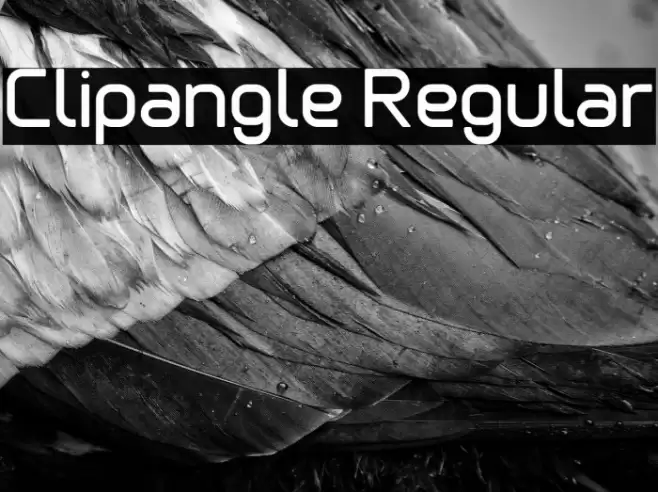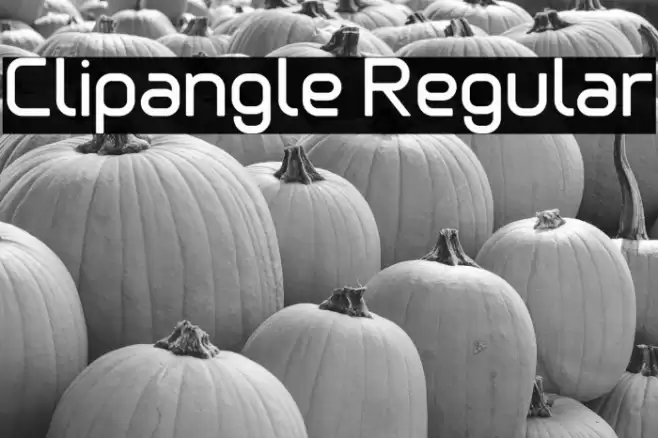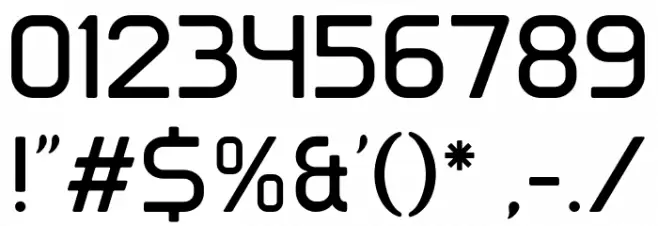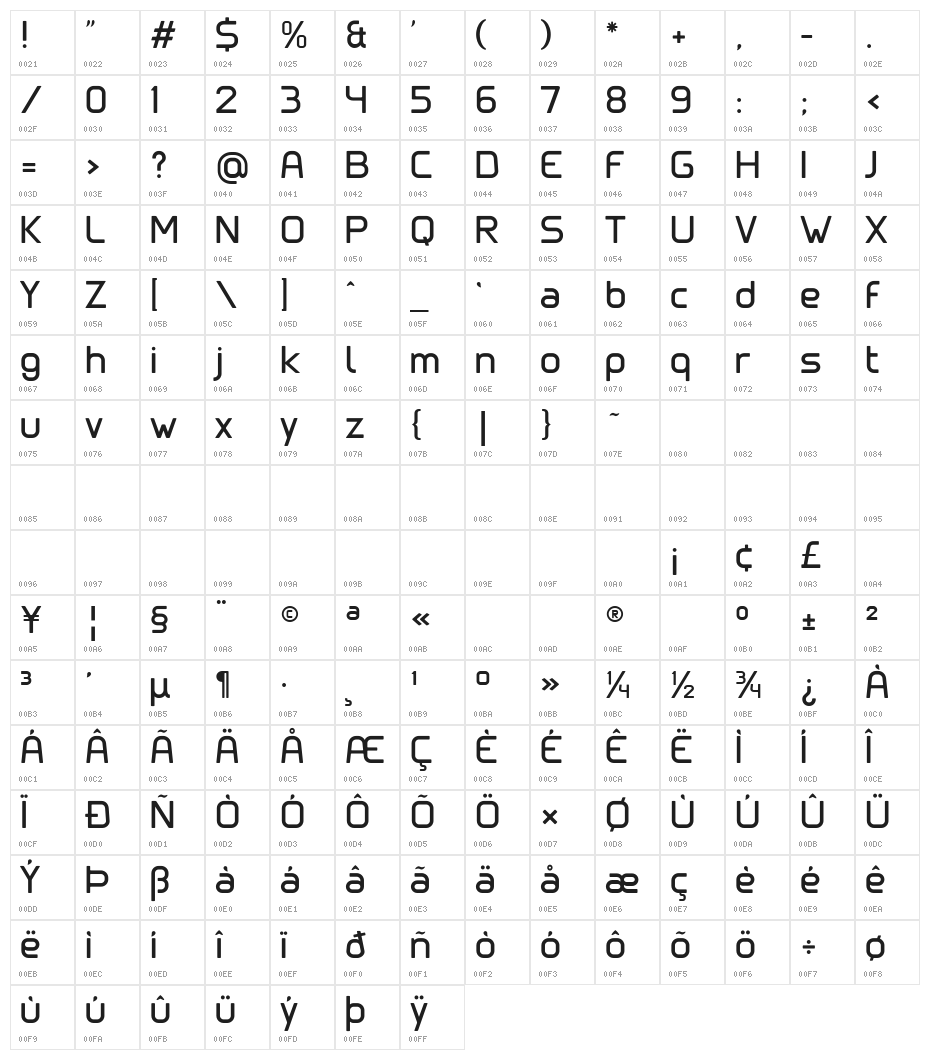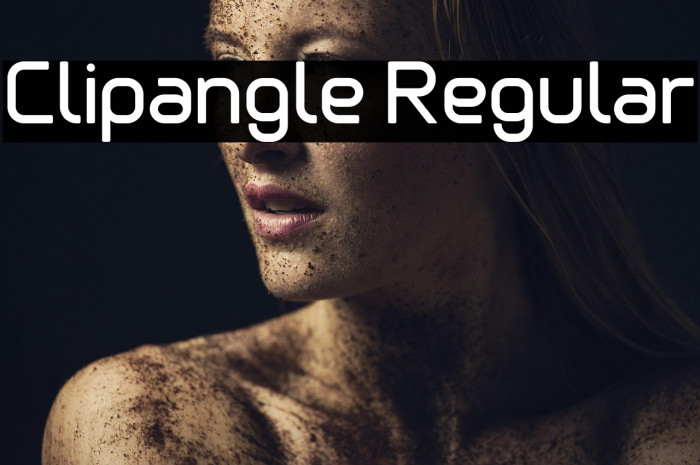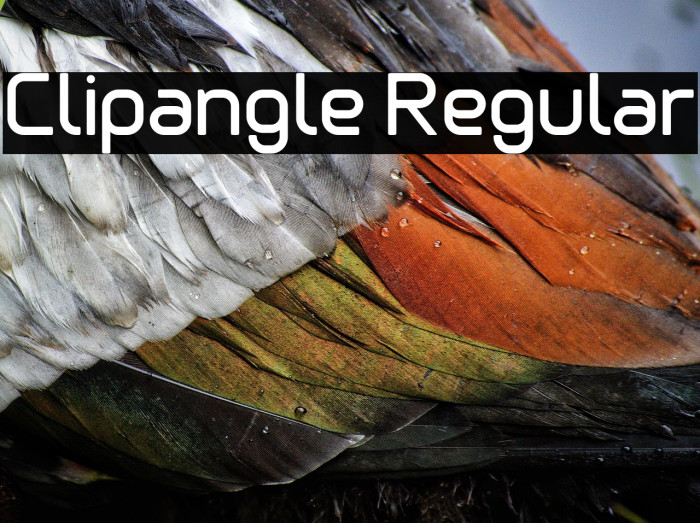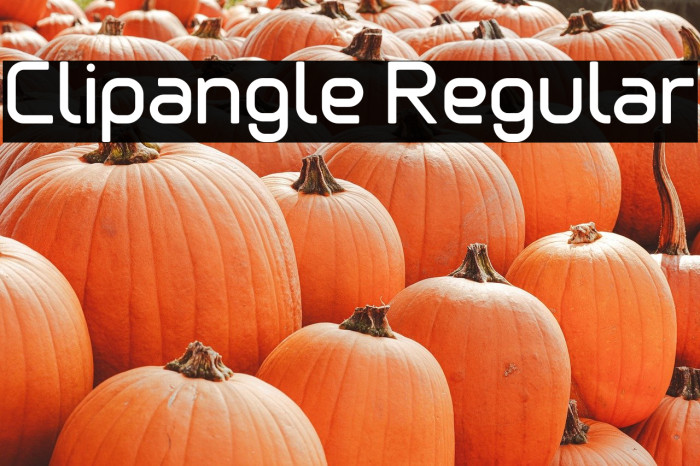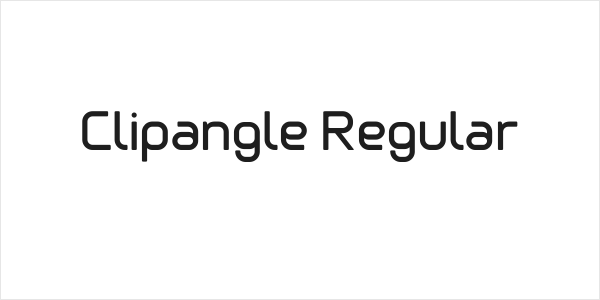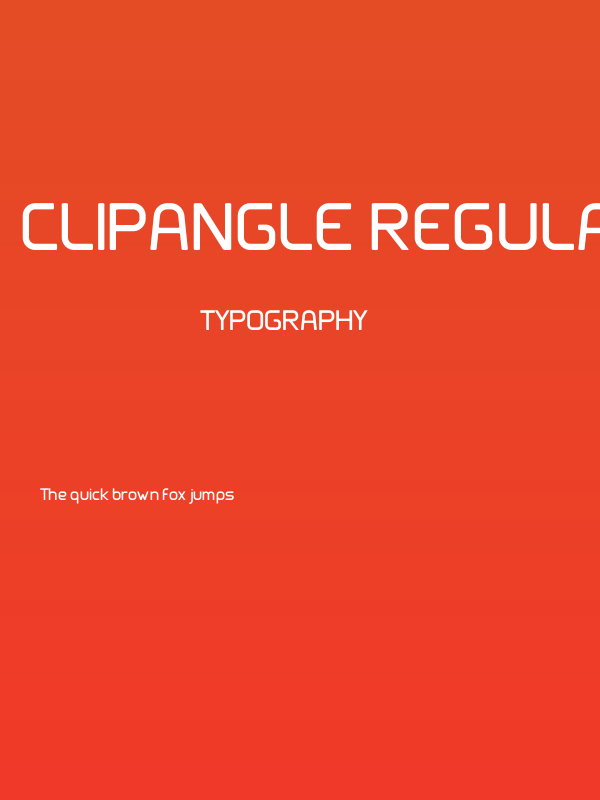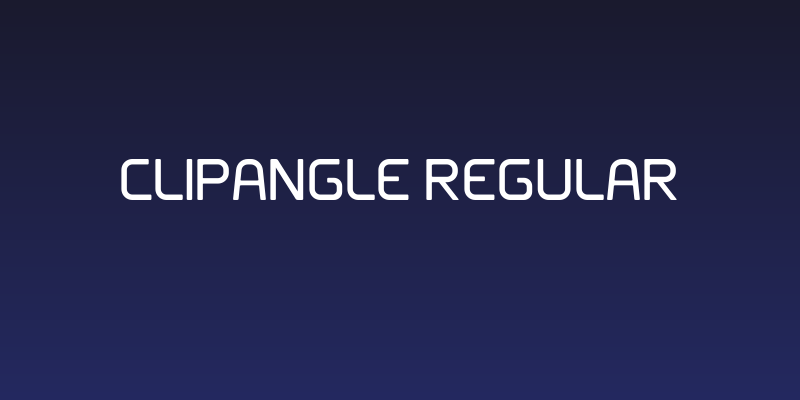
Clipangle Regular Font
Clipangle Regular Description
This font features a modern and sleek design with rounded edges and a geometric structure. The uppercase and lowercase letters maintain a consistent height, providing a uniform appearance. The numerals are clear and easy to read, complementing the overall style. Special characters are well-integrated, ensuring versatility in various applications. The font's clean lines and balanced proportions make it suitable for both digital and print media, offering a contemporary look that is both professional and approachable.
A modern, rounded font with geometric structure and consistent height from Regular fonts.